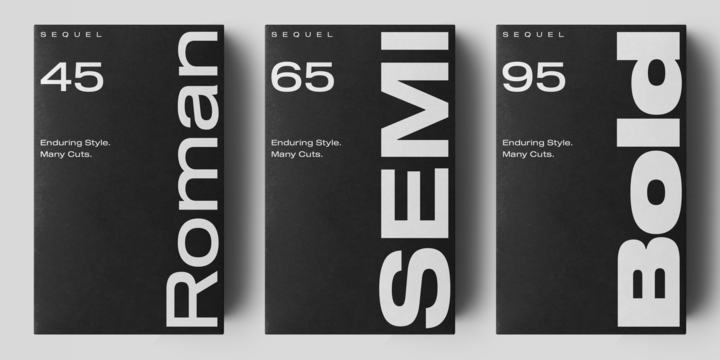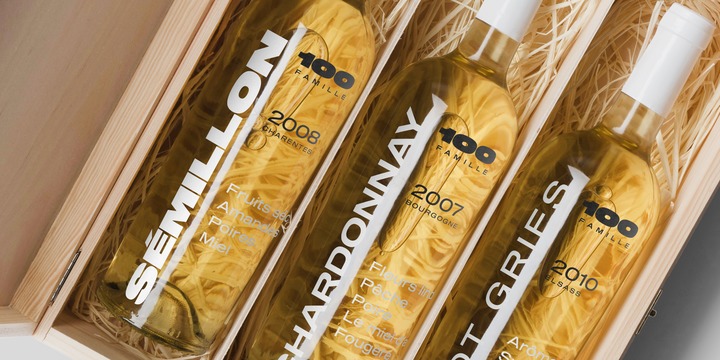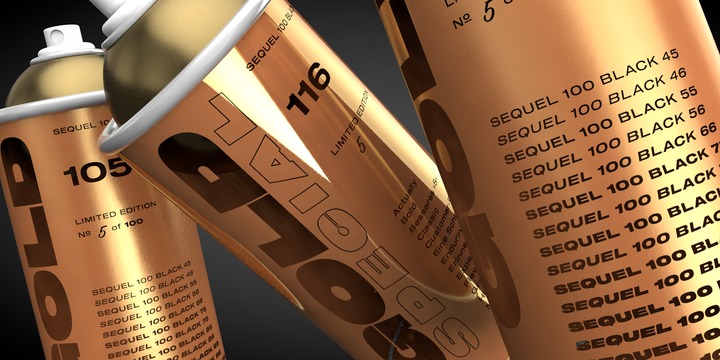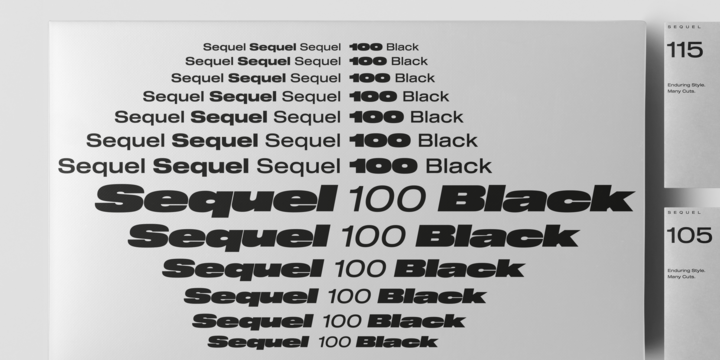
Sequel 100 Black was designed in 2018 by type designer Jeschke in Berlin. It is based on the sans-serif typefaces of the early 19th century. A characteristic feature of the Sequel 100 is the almost equal thickness of the vertical and horizontal strokes, the horizontally cut endings of the letters a, c, e, g, s, as well as a striking R.
Unlike other sans-serif faces, the forms are absolutely clean and the x-height, in the normal thickness gradation a bit higher, in favor of legibility.
More Sequel 100 Black supports up to 74 languages, from light to bold, with the corresponding italics.